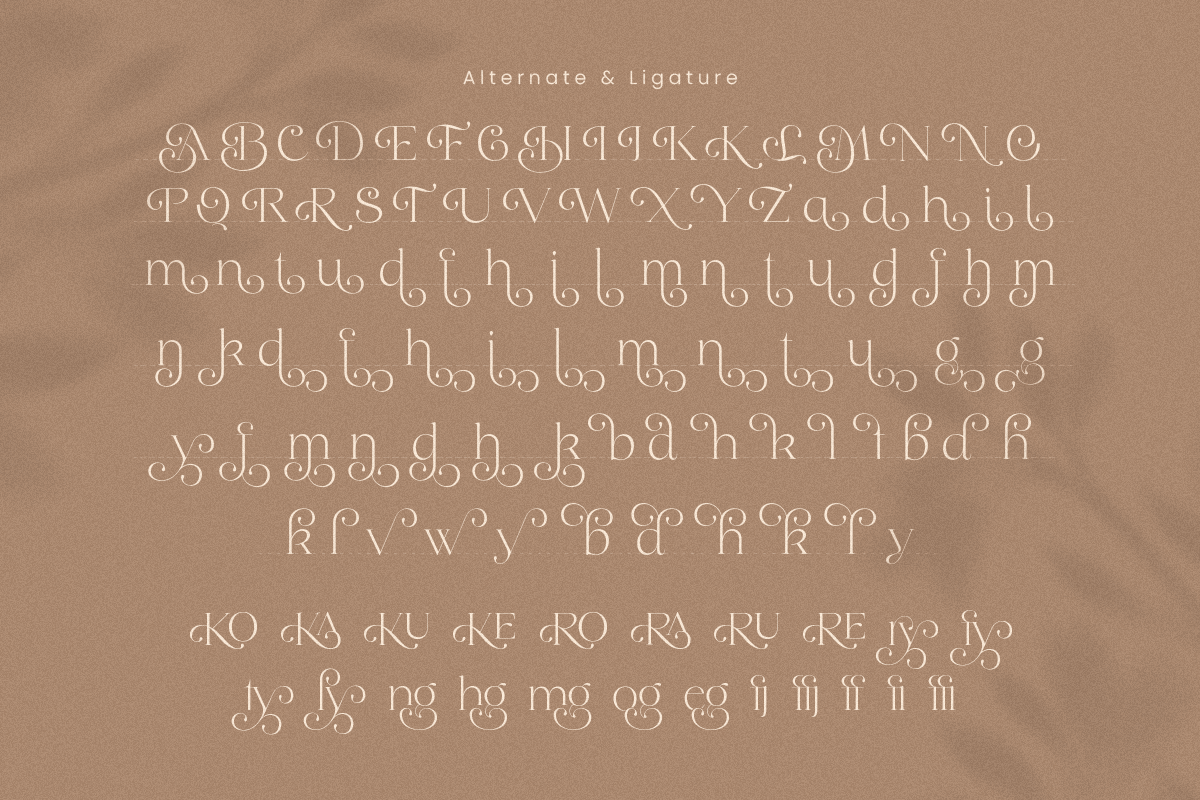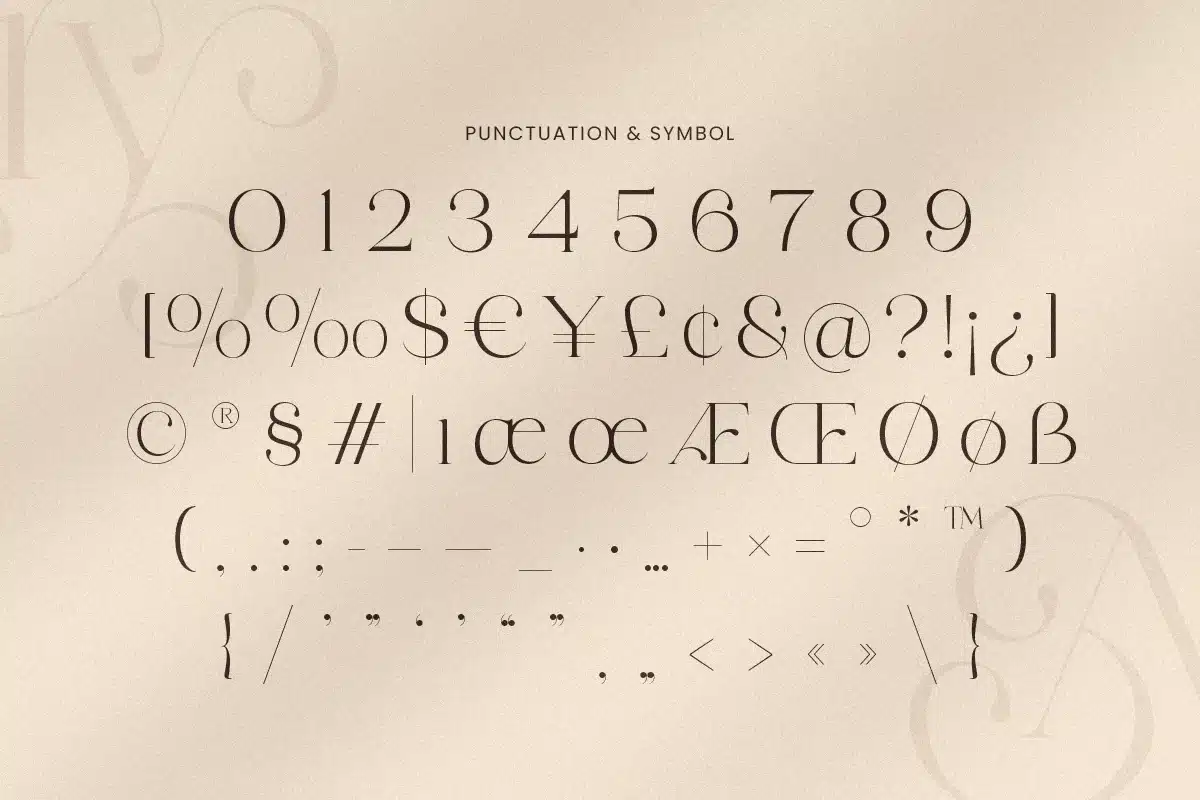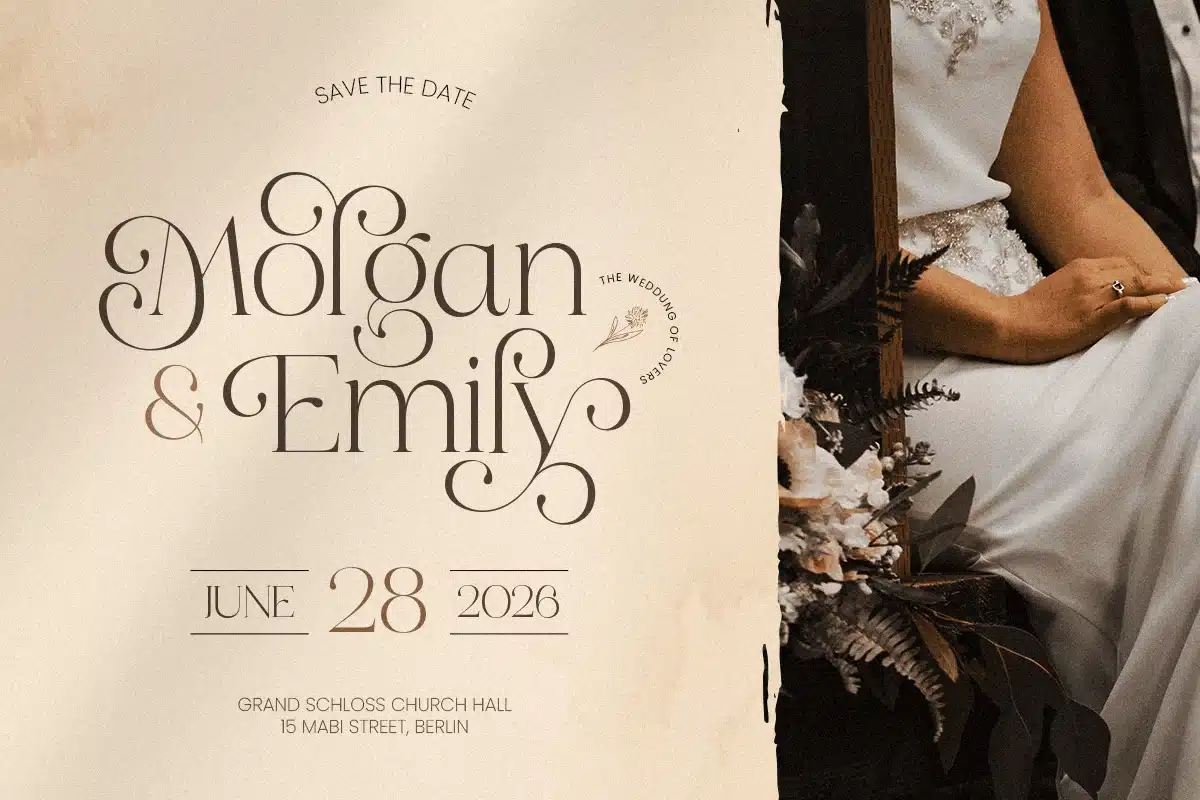
Mistery – Elegant Wedding Luxury Font
Mistery is an elegant wedding luxury font crafted to bring romance, refinement, and premium beauty to your typography. With graceful letterforms, polished details, and a sophisticated visual rhythm, this typeface creates a luxurious tone that feels intimate, stylish, and instantly memorable.
Designed for wedding-focused and high-end branding projects, Mistery works beautifully across invitations, save-the-dates, monograms, logos, venue signage, menu cards, packaging, labels, social media announcements, and elegant editorial layouts. Its refined structure keeps every composition polished and readable while adding a romantic, upscale presence across both digital and print design.
Whether you’re creating bridal branding, luxury wedding stationery, event décor, or premium promotional visuals, Mistery provides a graceful foundation that makes your typography feel timeless, heartfelt, and unmistakably elegant.
Inspiration Behind Mistery
Mistery is inspired by luxurious wedding aesthetics and romantic editorial typography—where grace, softness, and premium structure come together to create unforgettable visual storytelling. The design focuses on elegant rhythm and refined beauty to support bridal identities and timeless celebration design with a sophisticated, high-end feel.
Mistery Font Features:
- Elegant luxury letterforms with romantic wedding character
- Perfect for invitations, branding, monograms, and bridal typography
- Refined structure for graceful and premium visual presentation
- OpenType features for polished professional typesetting
- Wedding invitations, save-the-dates, RSVP cards, and stationery suites
- Bridal branding, luxury event planners, and romantic identity systems
- Logos, wordmarks, monograms, and elegant headline typography
- Signage, menu cards, gift tags, packaging, and refined labels
- Social media announcements, websites, and wedding marketing assets
Create timeless bridal elegance with Mistery—a luxury wedding font made for romantic, unforgettable design. 💍✨